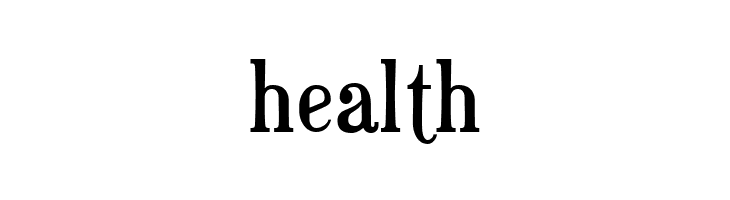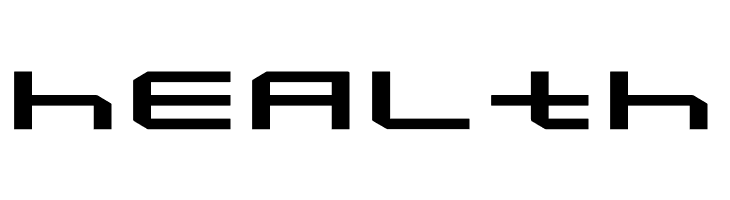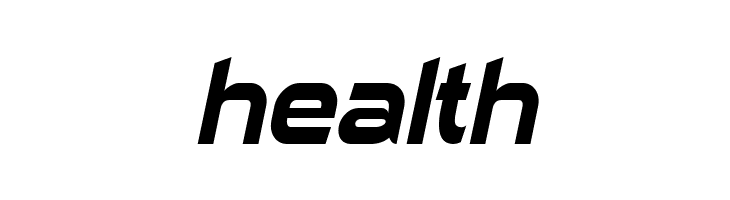
Good Times Font
A sleek, modern font with a geometric and futuristic design.
Ethnocentric Font
A bold, futuristic font with sharp, angular lines and a geometric structure.
Coolvetica Font
A modern, bold font with smooth curves and geometric shapes, perfect for versatile use.
Kenyan Coffee Font
A bold, narrow font with a modern and authoritative style.
Bullpen 3D Font
A bold, 3D-effect font with strong outlines and shadows.
Barbatrick Font
A bold, italicized font with a dynamic, slanted style and high contrast.
Angostura Font
Sofachrome Italic Font
A futuristic, bold italic font with sharp, angular characters.
Fake Receipt Font
A dot matrix style font with a retro, tech-inspired aesthetic.
Anklepants Font
A bold, geometric font with strong, sharp angles and a modern style.
Neuropolitical Font
A futuristic, geometric font with sharp angles and clean lines.
Electroharmonix Font
A bold, geometric font with sharp angles and a modern, futuristic style.
Libel Suit Font
A bold, modern font with clean lines and a condensed appearance.
Primer Apples Font
A playful dashed line font resembling a stencil or cut-out pattern.
!Y2KBUG Font
A futuristic, geometric font with rounded edges and consistent line weight.
Sui Generis Bold Italic Font
Euphorigenic Font
A classic serif font with high contrast and elegant strokes.
Soul Papa Font
A bold, modern sans-serif font with clean lines and a strong presence.
Stereofidelic Font
A bold, decorative font with integrated arrow elements in each character.
Deftone Stylus Font
A bold, cursive script font with dynamic, flowing letters and decorative flourishes.
Blue Highway D Type Font